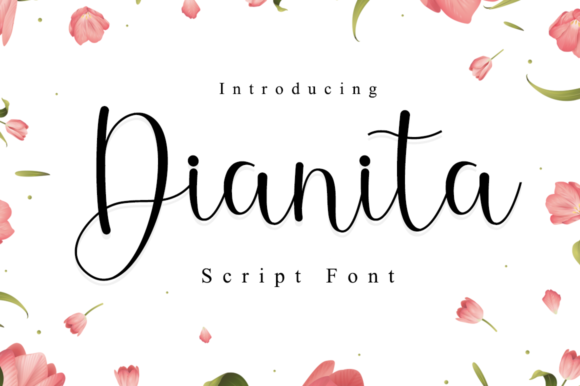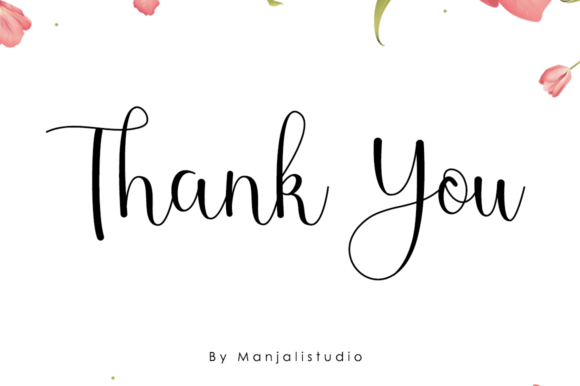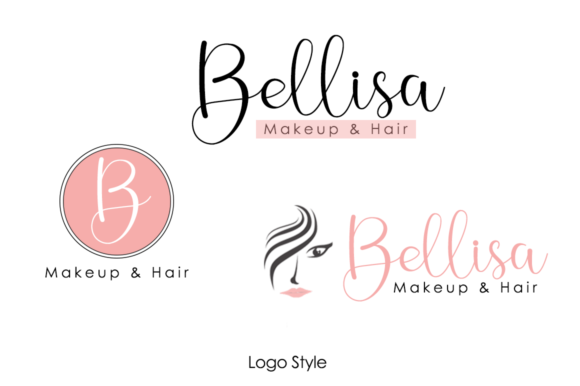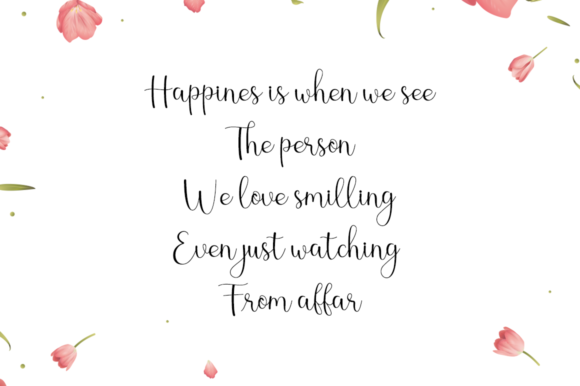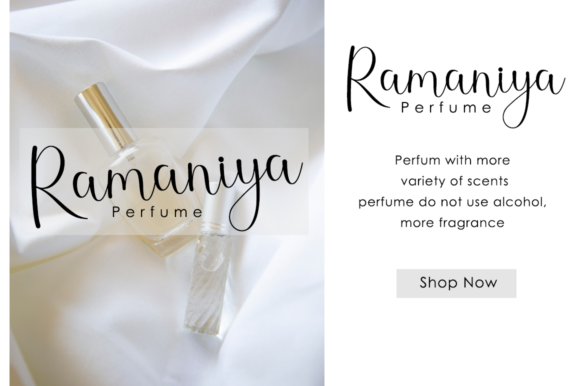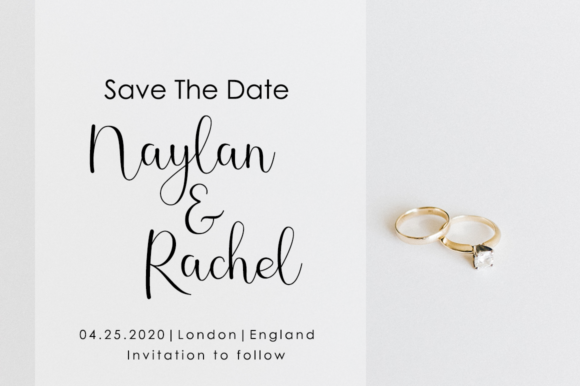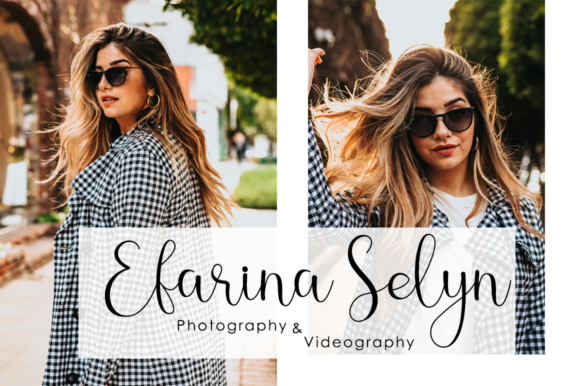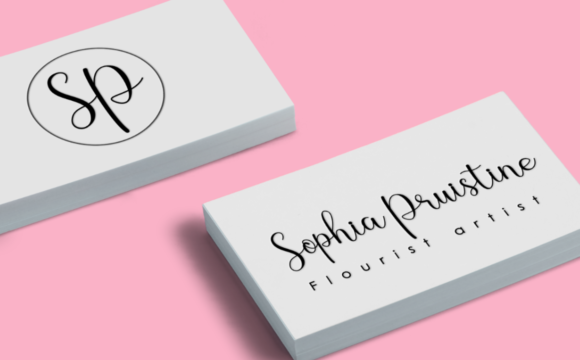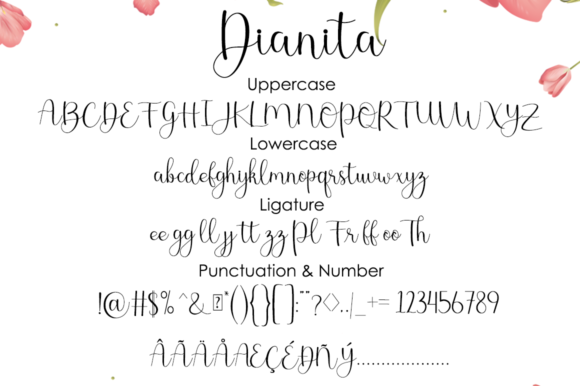
Dianita Font
About Dianita Font
Dianita Font is a modern script font that feels incredibly romantic. Use it to add an authentic and elegant vibe to your next DIY project!